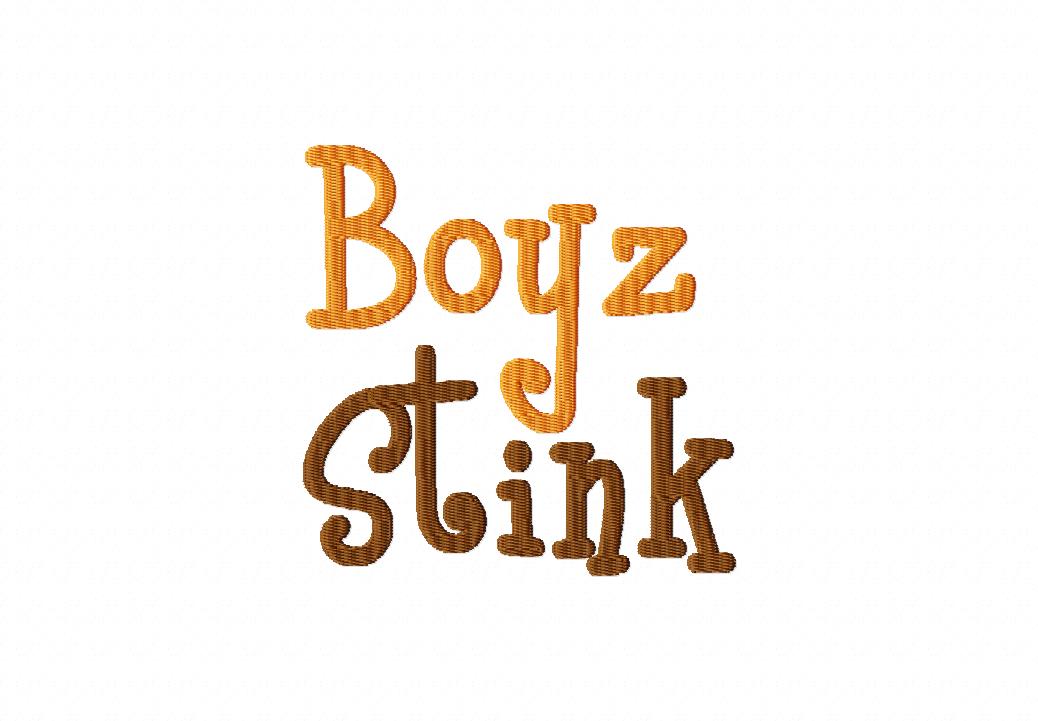
This fontastic full featured alphabet set is ready for all your monogramming needs. These curly letters dip and swoop and are fun and fashionable. Personalize a project today! Download it below for Gold Members only.
The Boyz Stink Font includes Uppercase and Lowercase Letters, Numbers and Punctuation in  1" 1.5" & 2" sizes. Made with Fill Stitch.